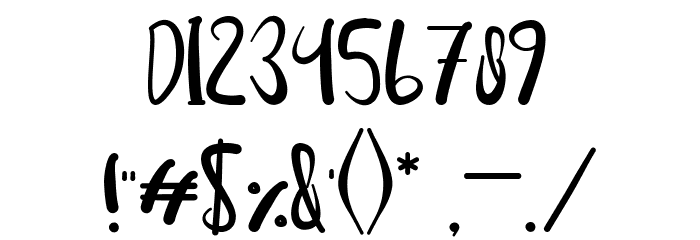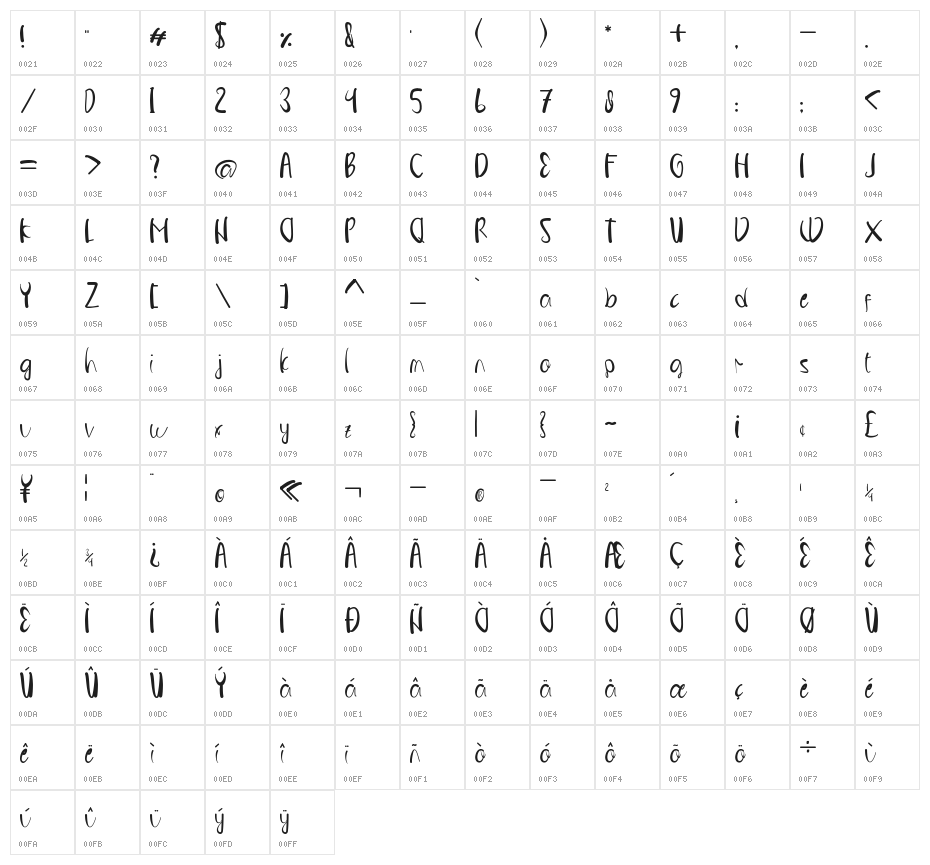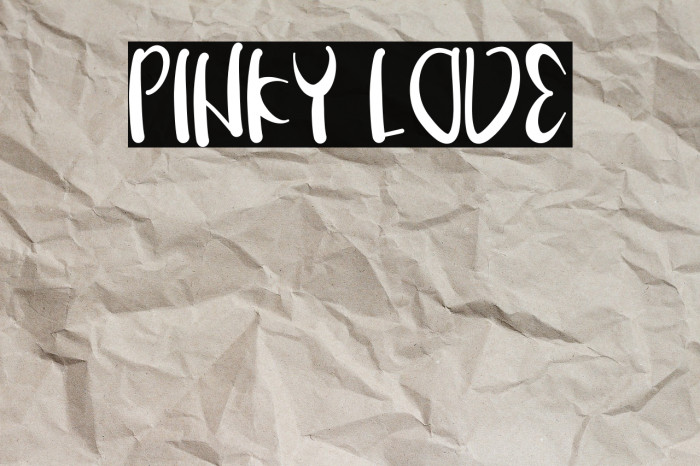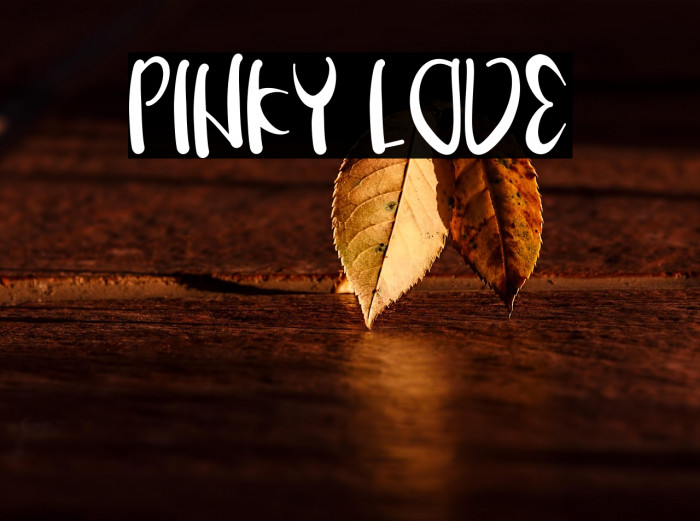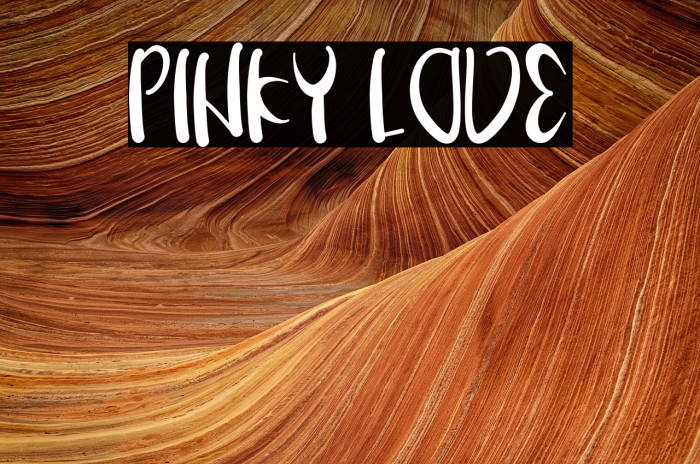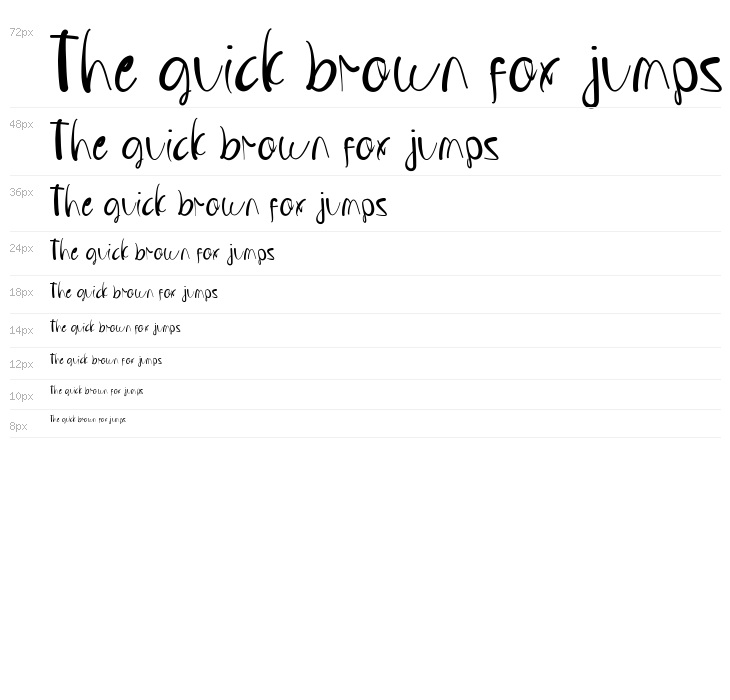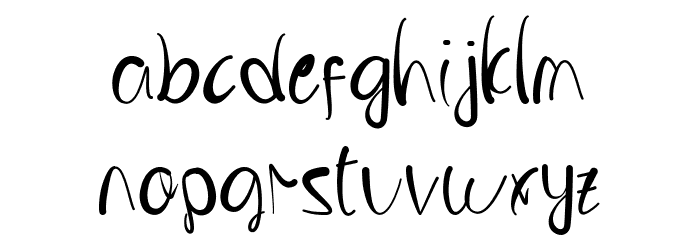
PINKY LOVE Font
This playful and whimsical font features a handwritten style with a casual and friendly appearance. The letters are slightly irregular, giving it a personal touch that mimics natural handwriting. The strokes are smooth and flowing, with a moderate thickness that ensures readability while maintaining an artistic flair. The uppercase letters are bold and expressive, while the lowercase letters are more relaxed and informal. Numbers and special characters are designed to match the overall style, making this font versatile for various creative projects.
| Proposed Projects | Ideal for greeting cards, invitations, children's books, and playful branding. |